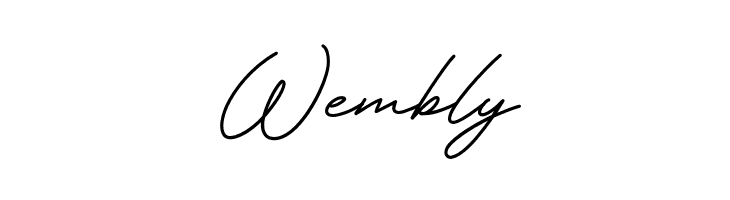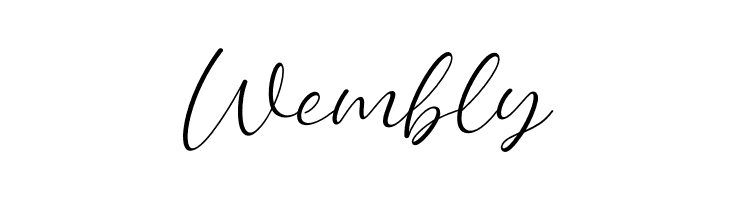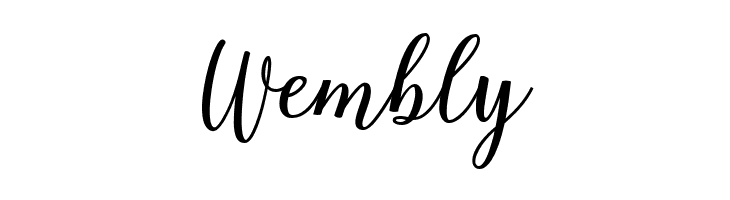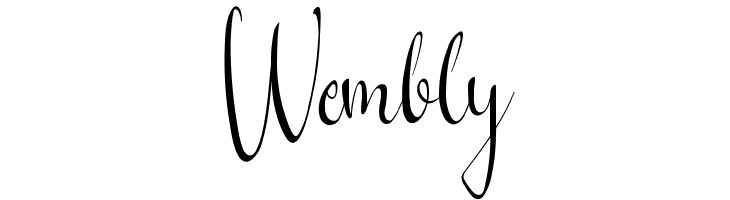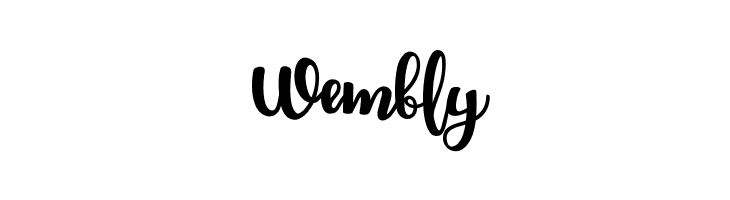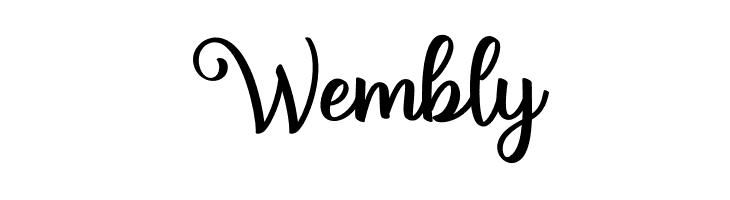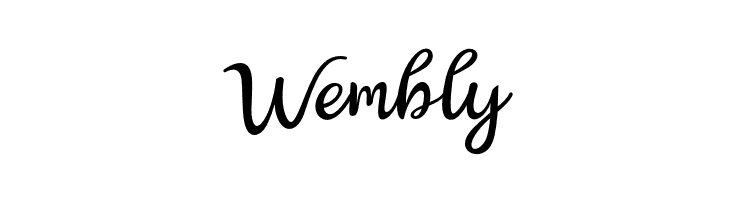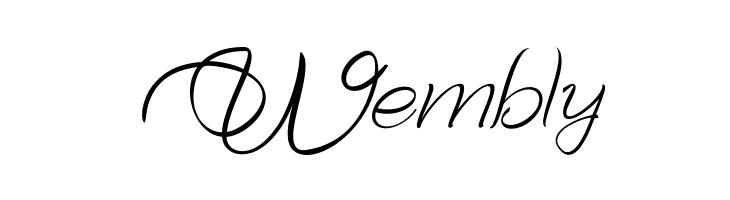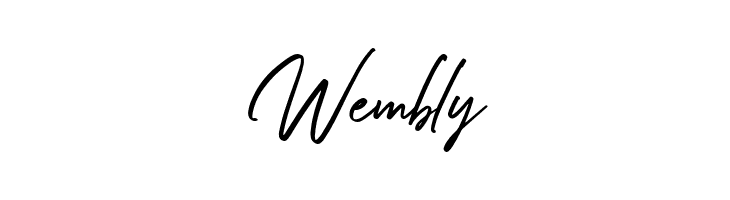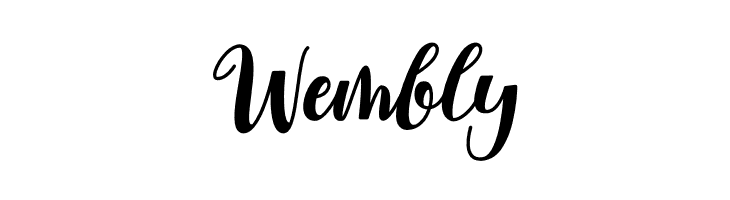
A lively and expressive handwritten font with fluid, varied strokes.
A playful and bold font with rounded, slightly irregular letterforms.
A fluid and elegant handwritten script with dynamic movement.
A graceful and elegant script font with flowing cursive letters.
A playful and elegant script font with flowing, interconnected letters.
A playful, modern handwritten font with fluid, connected letterforms.
A bold, brush-style font with a textured, hand-painted look.
A graceful script font with flowing, interconnected letters.
A graceful, flowing script font with elegant, connected characters.
A playful, whimsical handwritten font with fluid, flowing letterforms.
An elegant, flowing script font with bold, decorative flourishes.
A flowing, cursive script font with elegant, connected strokes.
An elegant script font with flowing, ornate letterforms and intricate swashes.
A modern, elegant cursive font with a calligraphic style.
A cursive, handwritten font with elegant, flowing characters.
An elegant script font with ornate swashes and decorative flourishes.
A lively handwritten font with fluid strokes and elegant flair.
A bold, expressive handwritten font with dynamic strokes and high contrast.
A bold, cursive font with a flowing, handwritten style.
An elegant script font with flowing, cursive strokes and a sophisticated style.
A playful, cursive font with a handwritten, whimsical style.
A playful and elegant cursive font with interconnected strokes.
A lively, expressive handwritten font with fluid strokes and dynamic style.
An elegant and sophisticated cursive script font with ornate uppercase and smooth lowercase letters.
An elegant and flowing script font with intricate loops and swashes.
An elegant and sophisticated cursive font with decorative uppercase letters.
A bold, flowing script font with elegant cursive letterforms and playful swirls.
A flowing, elegant script font with ornate uppercase and smooth lowercase letters.
A dynamic, cursive script font with fluid, connected letters and varying stroke thickness.
Elegant script font with a handwritten style.
A dynamic and elegant script font with smooth, flowing connections.